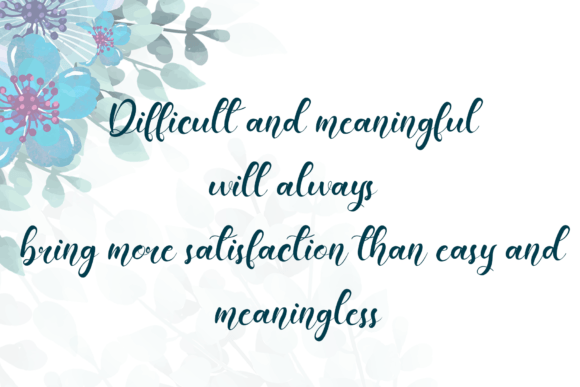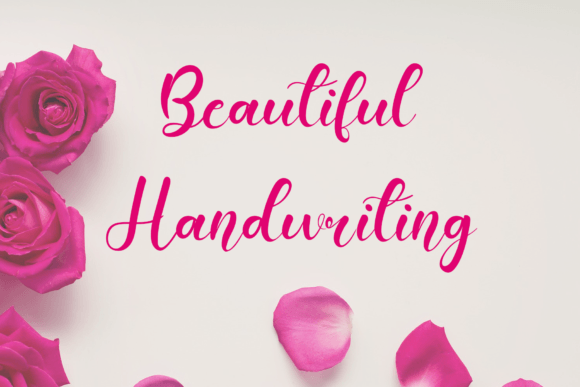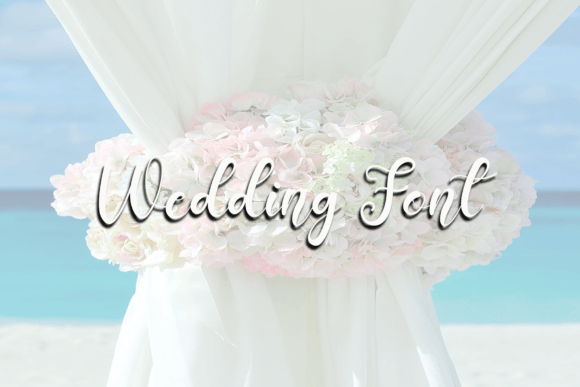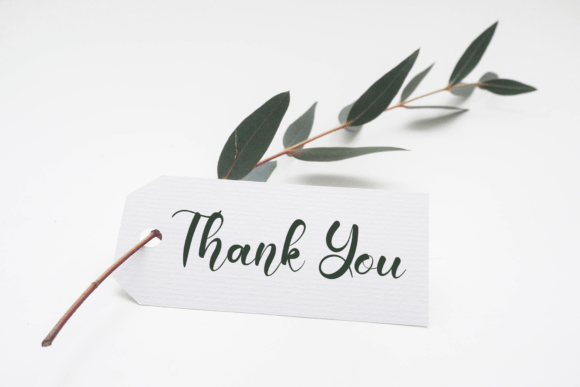
The Perfect Gift: Discovering the Charm of Father Day Font
I’ll never forget the time I was working on a Father’s Day project for a client, and I just couldn’t find the right font to capture the essence of the occasion. The design needed to be elegant, yet playful; sophisticated, yet approachable. That’s when I stumbled upon the Father Day Font, and it was love at first sight! ✨
This beautiful handwritten font has an elegant touch that makes it perfect for a wide range of projects, from greeting cards to social media graphics. In this article, I’ll share my experience with Father Day Font, its features, and how to make the most of it in your designs.
The Good: Why I’m Obsessed with Father Day Font
- ✨ Elegant and sophisticated, yet approachable and playful
- 🎉 Incredibly versatile, suitable for various design projects
- 💕 Distinct and timeless style that evokes emotions
The Not-So-Perfect: A Few Quirks to Consider
While Father Day Font is an amazing addition to any design project, there are a few things to keep in mind: 🤔
- ⚠️ Limited availability of stylistic alternates, which might limit your creative options
- ⚠️ Some characters may require manual kerning for optimal results
The Story Behind Father Day Font: A Designer Inspiration
According to the designer, Father Day Font was created to capture the essence of love and appreciation for fathers. The design process involved countless hours of sketching and refining, resulting in a font that exudes warmth and sophistication.
Q: What makes Father Day Font unique?
A: Father Day Font’s unique blend of elegance and playfulness makes it stand out from other fonts.
Q: Is Father Day Font suitable for body text?
A: While Father Day Font is highly legible, it’s best suited for headings and titles due to its elegant and decorative nature.